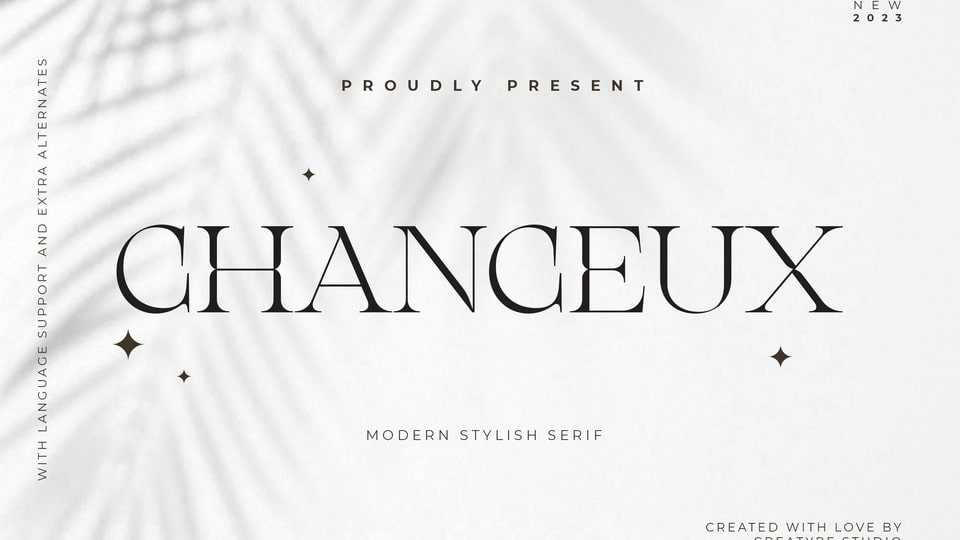
Download Chanceux font, a modern and stylish serif typeface. Chanceux will enhance any design project with its refined and sophisticated look, giving your work a touch of class and elegance.